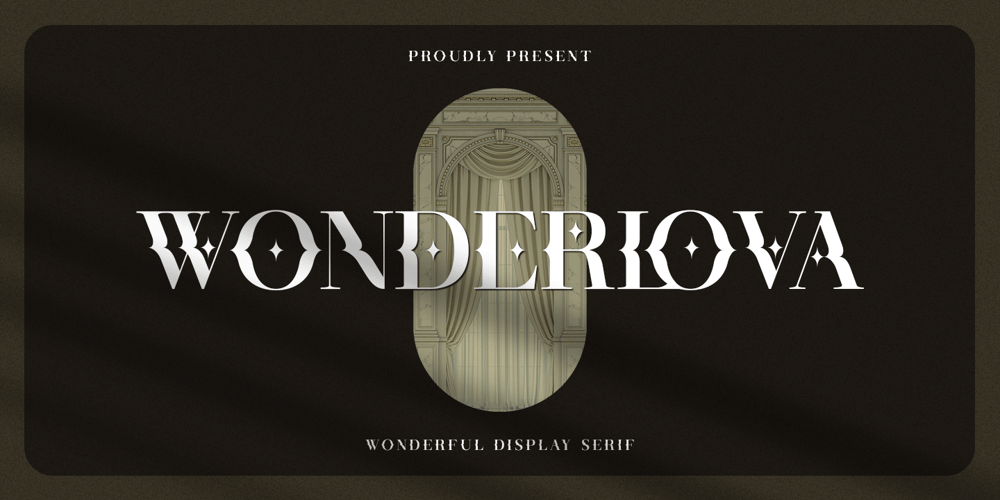
Wonderlova Font Family was designed by Abdul Malik Wisnu, Rivo Adriansyah and published by Mokatype Studio. Wonderlova contains 1 styles and family package options. Hello Introducing, Wonderlova – Wonderful Display Serif is an elegant, unique font that uses Ligatures to smoothly link letters. inspired by the famous minimalist logo, perfect for the purposes of designing templates, brochures, videos, advertising branding, logos, and more. Perfect for adding a unique twist to word-mark logos, monograms, or pull quotes. International Accent Works on PC & Mac Simple installations Accessible in Adobe Illustrator, Adobe Photoshop, Adobe InDesign, even work on Microsoft Word. PUA Encoded Characters – Fully accessible without additional design software. Fonts include multilingual supportImage used: All photographs/pictures/vectors used in the preview are not included, they are intended for illustration purposes only.Thank You